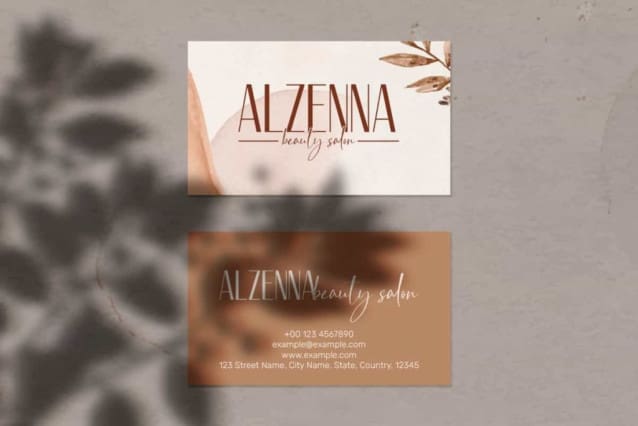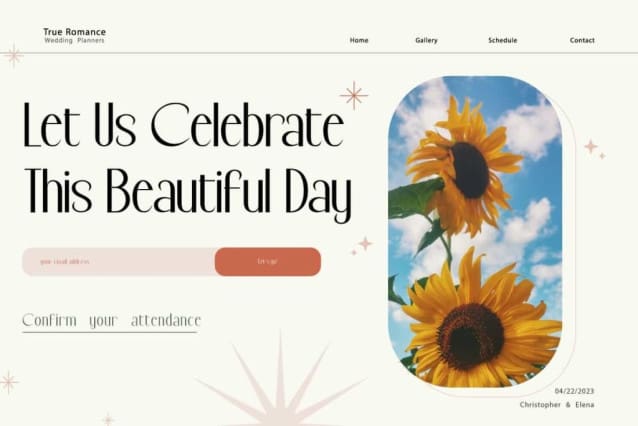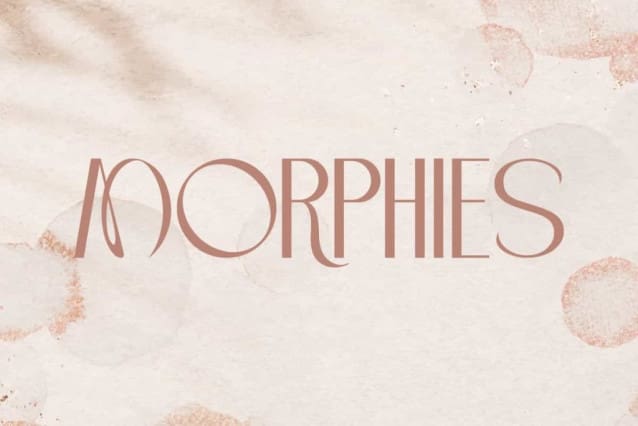
Morphies Font
Morphies Font is a stunning sans serif display font with clean modern minimal look. This font has a clean appearance with simple line flow that does not take away from its beauty. It will suits many designs, such as cover, custom design, gift box, invitation, label, poster, product packaging, quotes, screen printing, signage, stationery, title, website, and more!
Morphies Font includes full set of Uppercase and Lowercase Basic Characters, Numerals, Punctuation, and Symbol. This font is perfect for you who looking for simple font, so it will be suitable for many industries, such as accessories and jewelry, advertising, beauty product, craft, event or wedding organizer, fashion, florist, home furniture, perfume, resort, restaurant, etc.